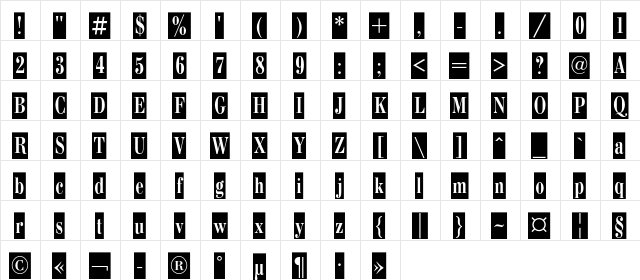
BodoniCameoC Regular
Design Context for BodoniCameoC Typeface
BodoniCameoC is a composed and adaptable typeface that performs quietly and consistently across a wide range of design contexts.